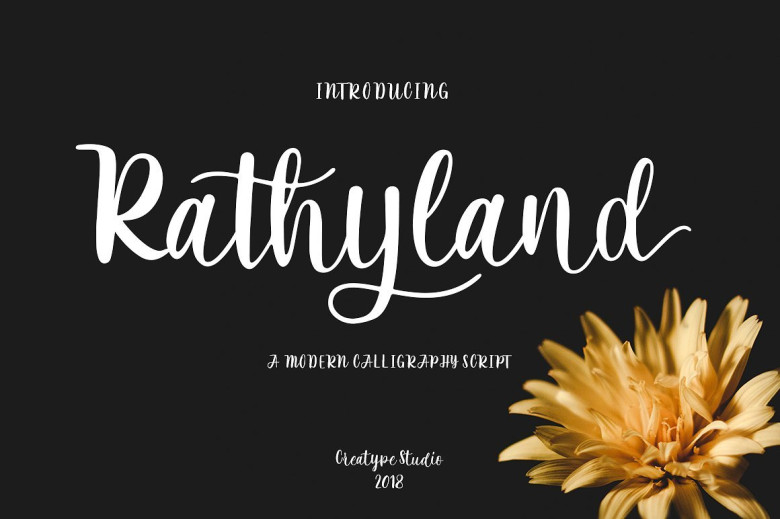
Rathyland Script Font
Introducing Rathyland. It is was designed by Creatype Studio Co.. Rathyland is a modern calligraphy script with handwritten style make this font looks stylish, elegant and natural and so perfect for any awesome projects that need handwriting taste. This font is perfect for many different project such as logos & branding, invitation, stationery, wedding designs, social media posts, advertisements, product packaging, product designs, label, photography, watermark, special events or anything.